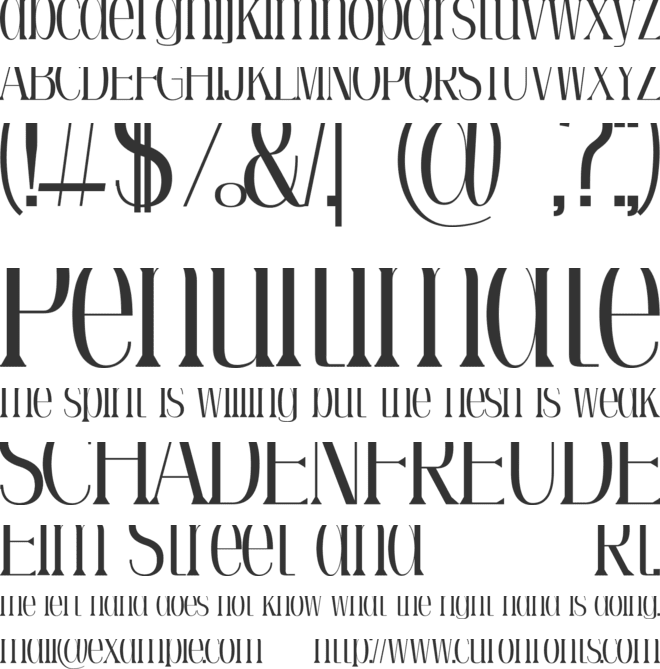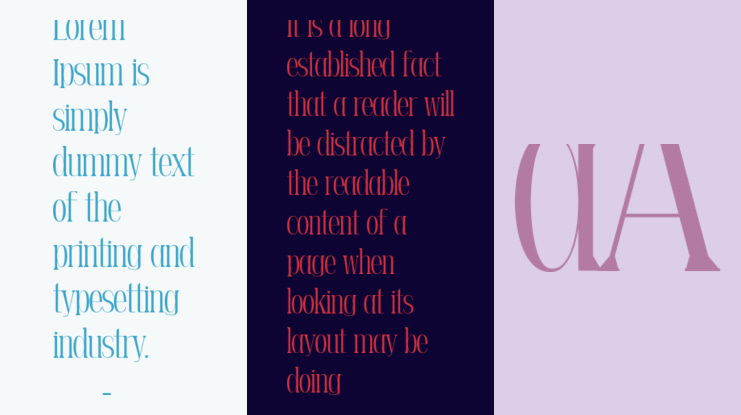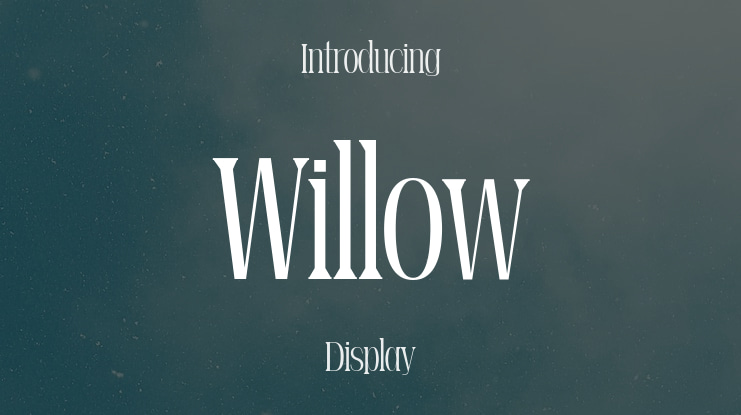
Willow Font Family
Willow is a tall, delicate serif with over 520 glyphs and multilingual support—perfect for poetic layouts, refined branding, and minimalist elegance.